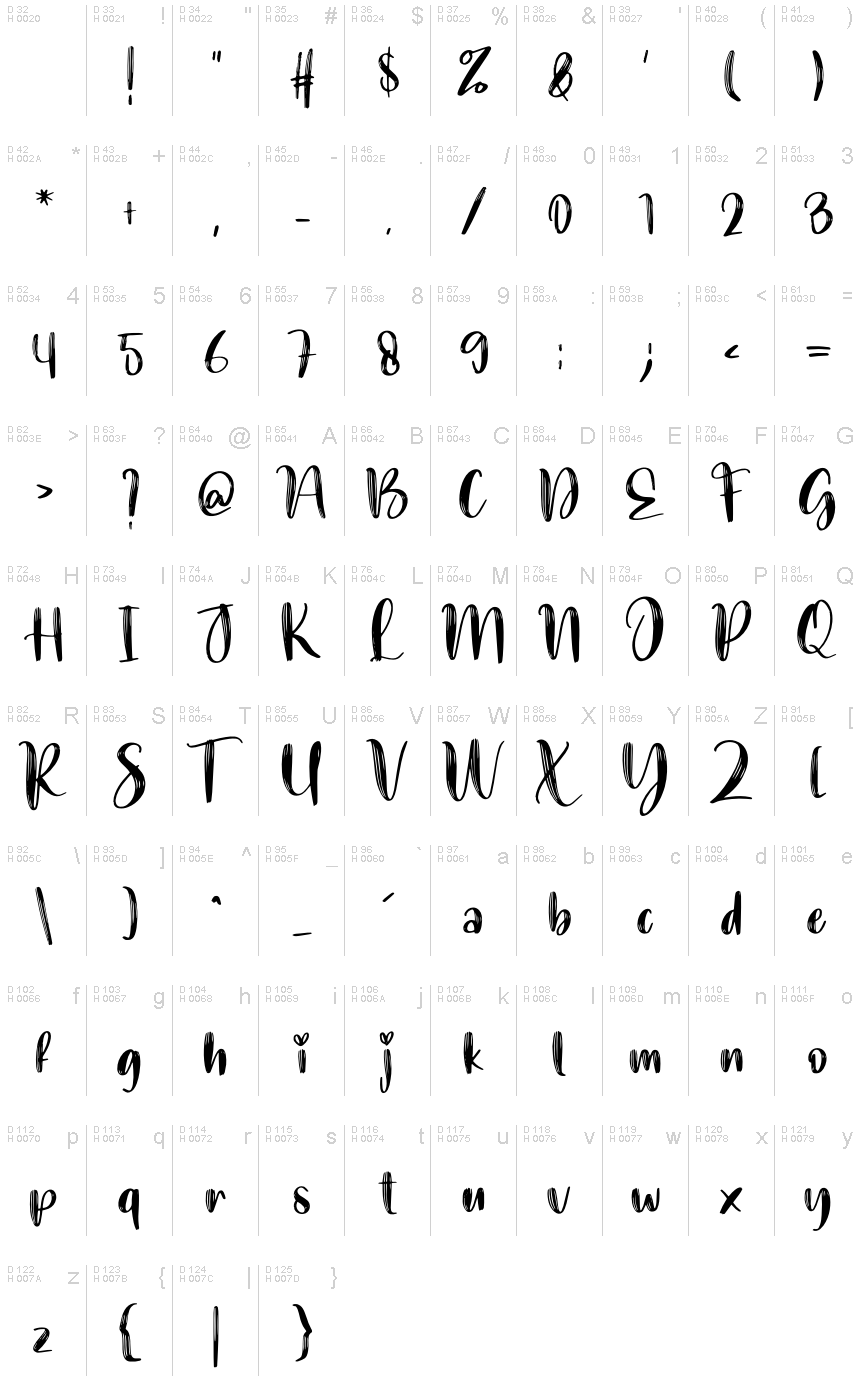
Outside Workspace
Outside Workspace, a captivating brush-style font crafted by Scratchones, exudes a sense of organic elegance and effortless charm. The flowing, calligraphic strokes create a harmonious balance between refined sophistication and a touch of casual flair, making it a versatile choice for a wide range of design applications.
The distinctive, expressive brushstrokes of Outside Workspace lend a dynamic and emotive quality to any text, conveying a sense of movement and fluidity. Its unique character shapes and subtle variations add depth and personality, elevating the visual impact of headlines, titles, and decorative elements. This font's captivating aesthetic seamlessly blends the allure of handwritten lettering with a polished, contemporary sensibility.